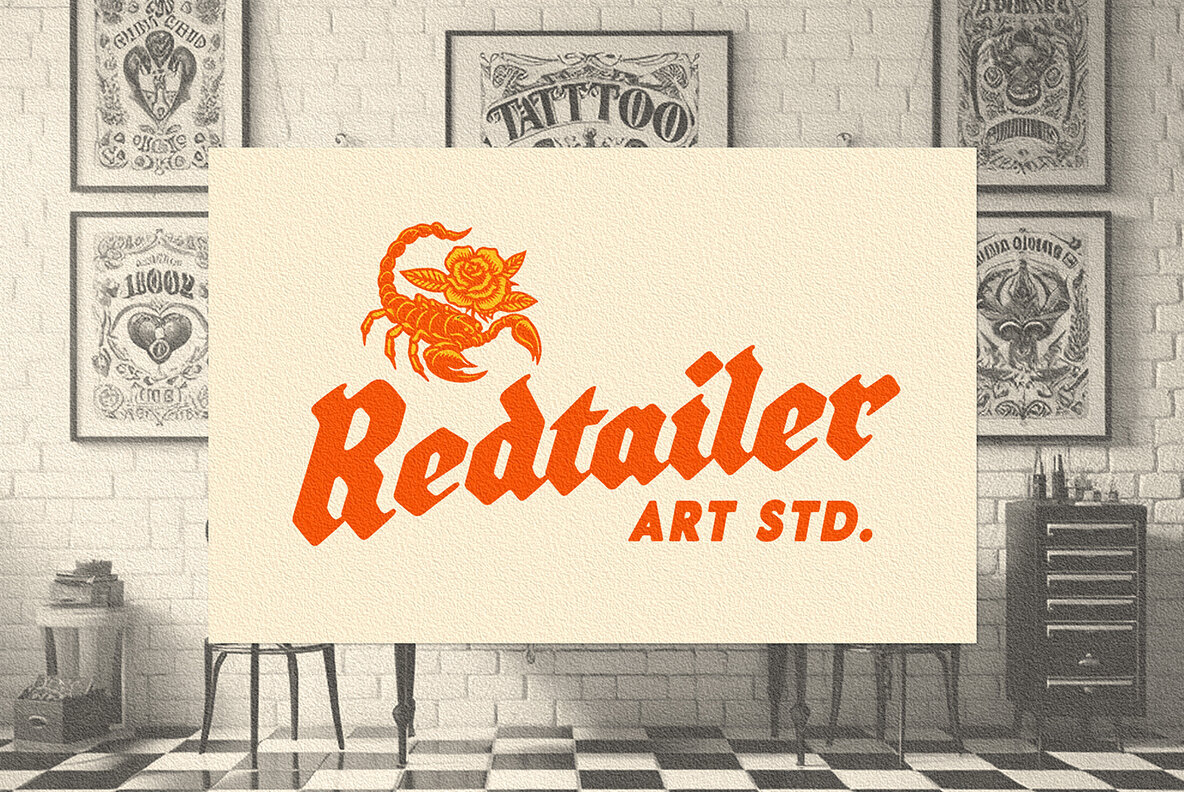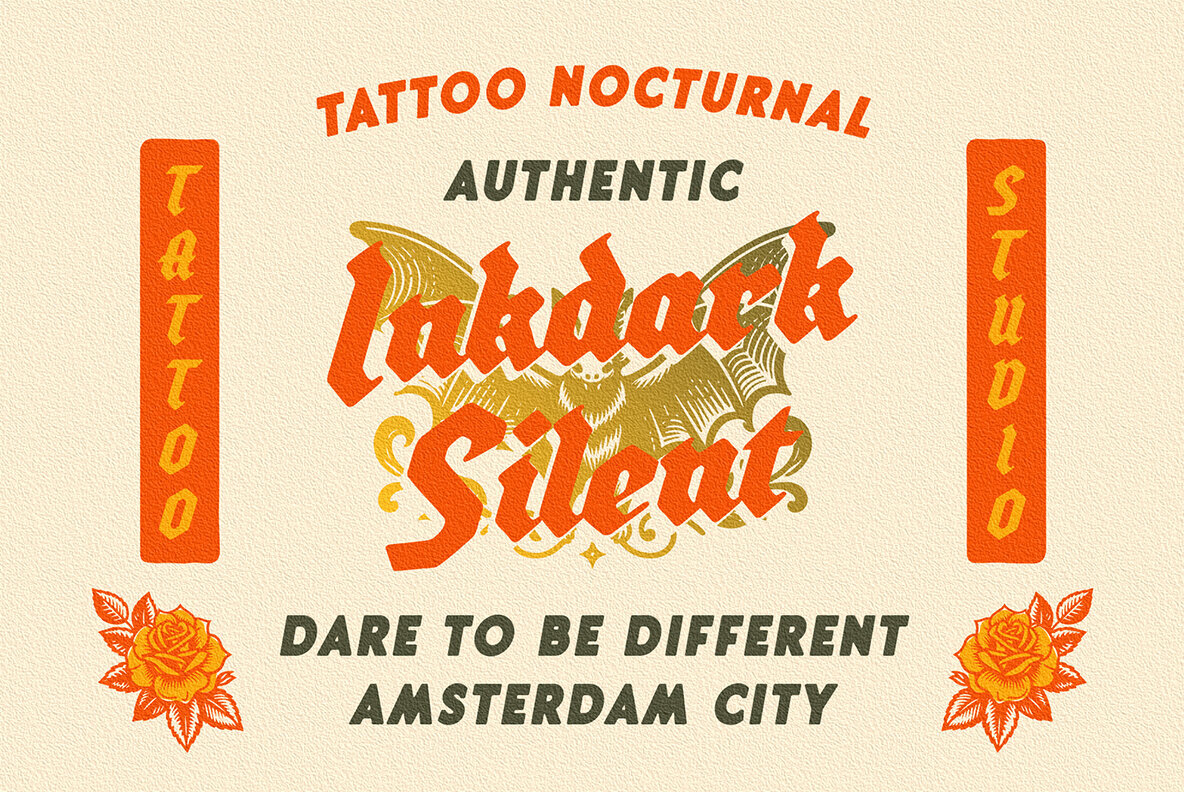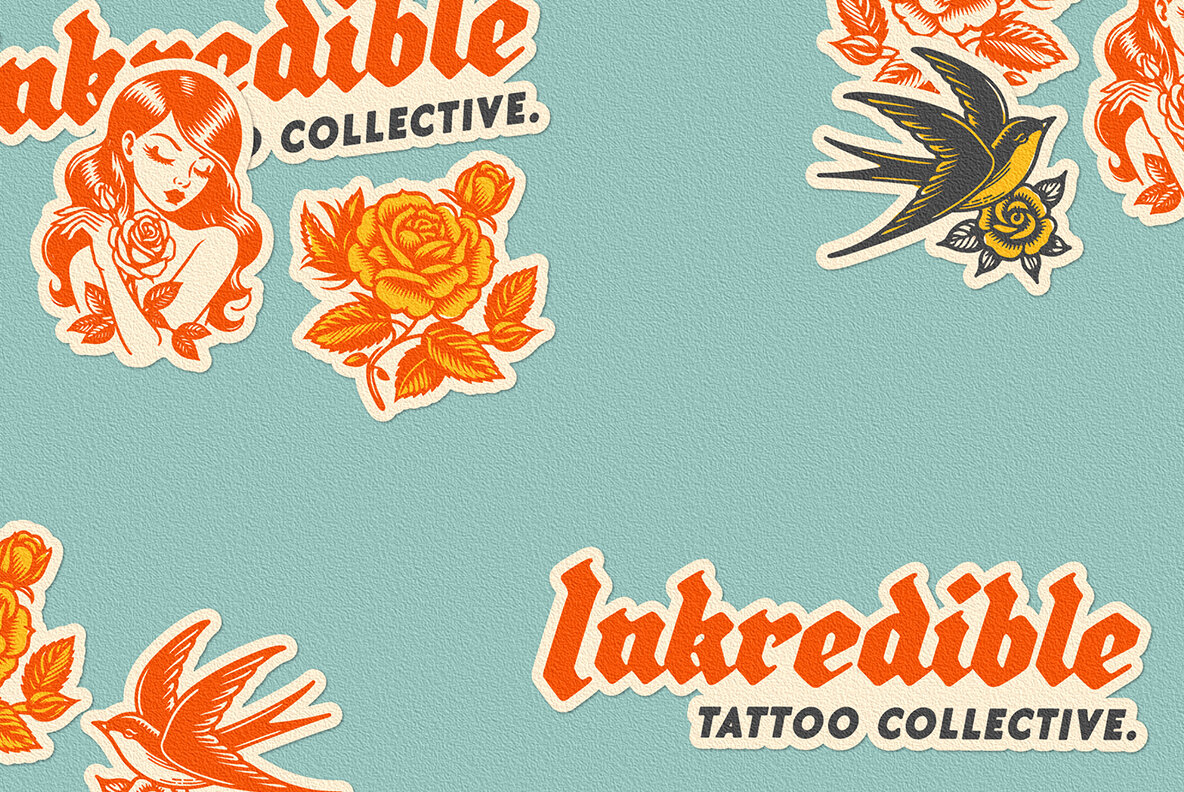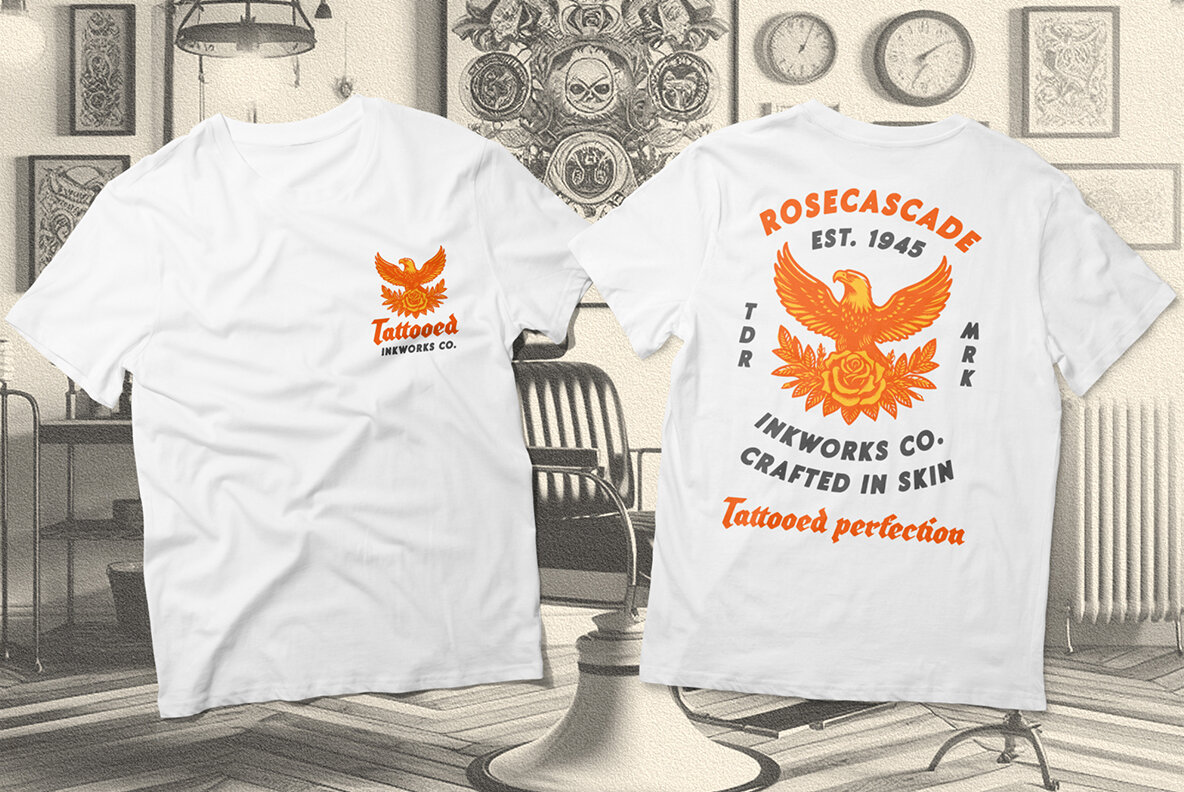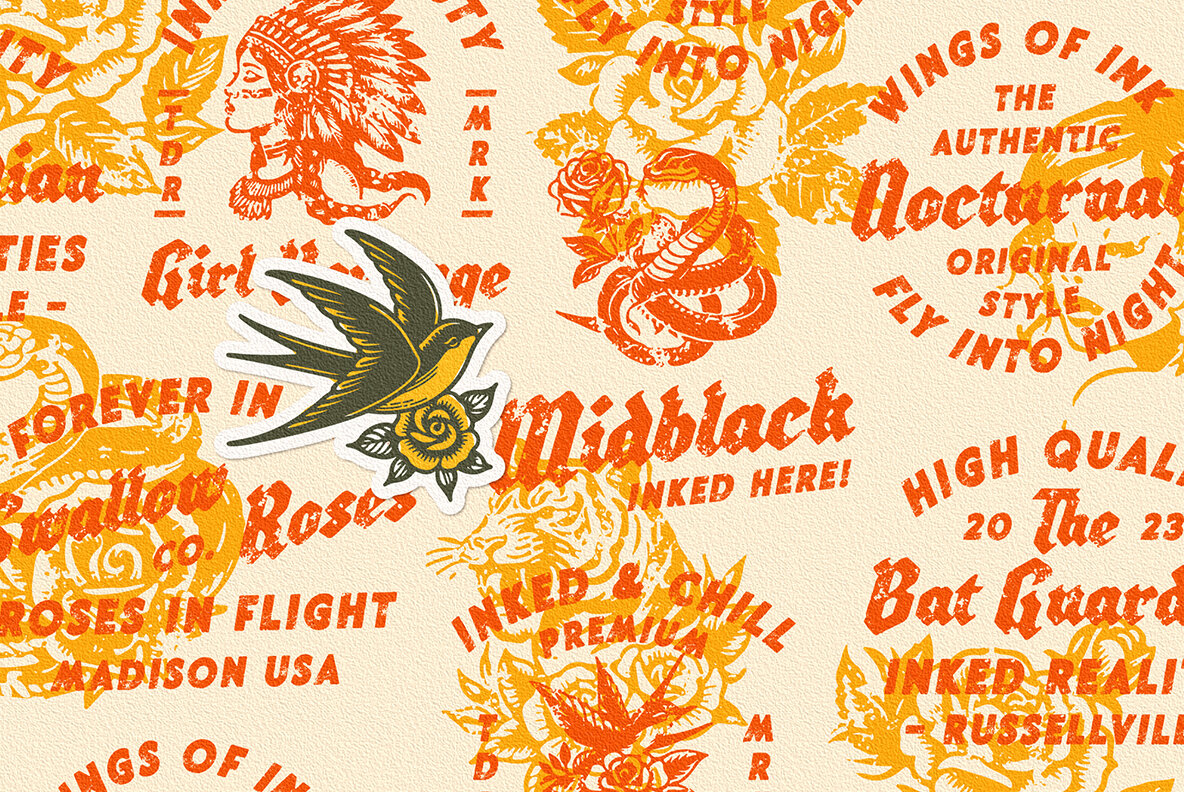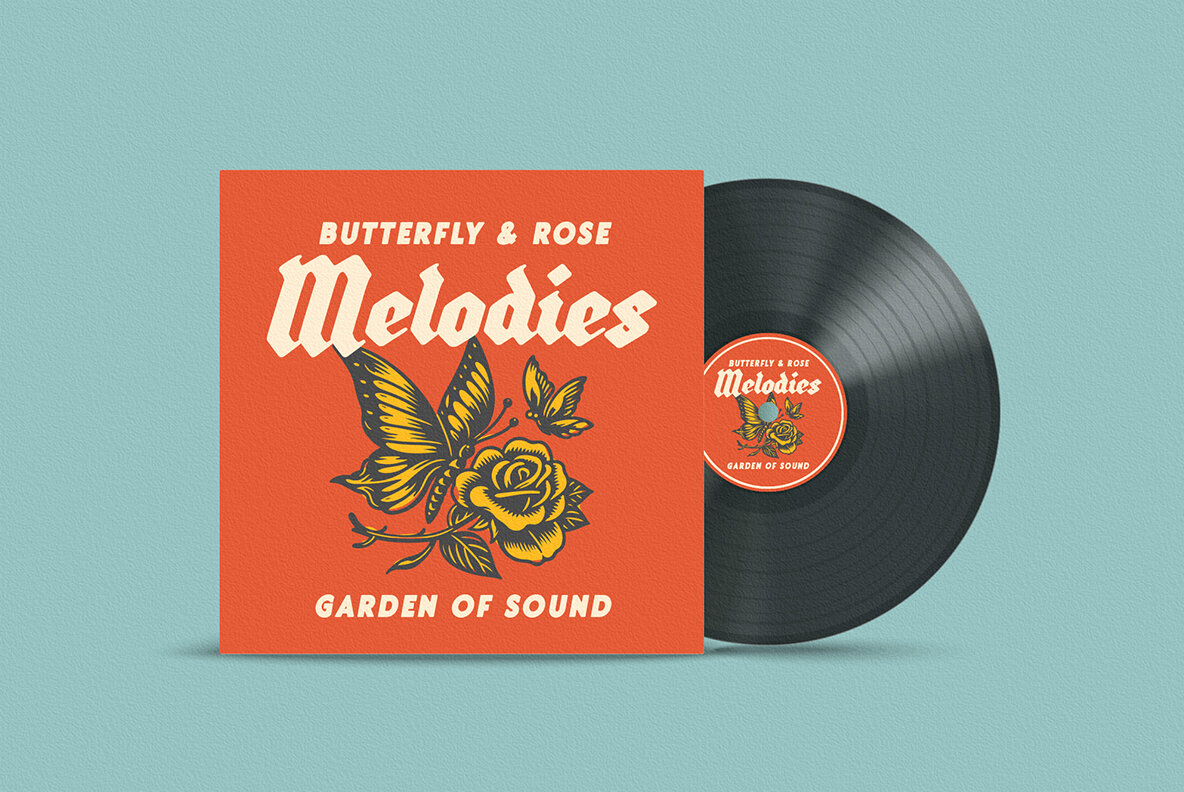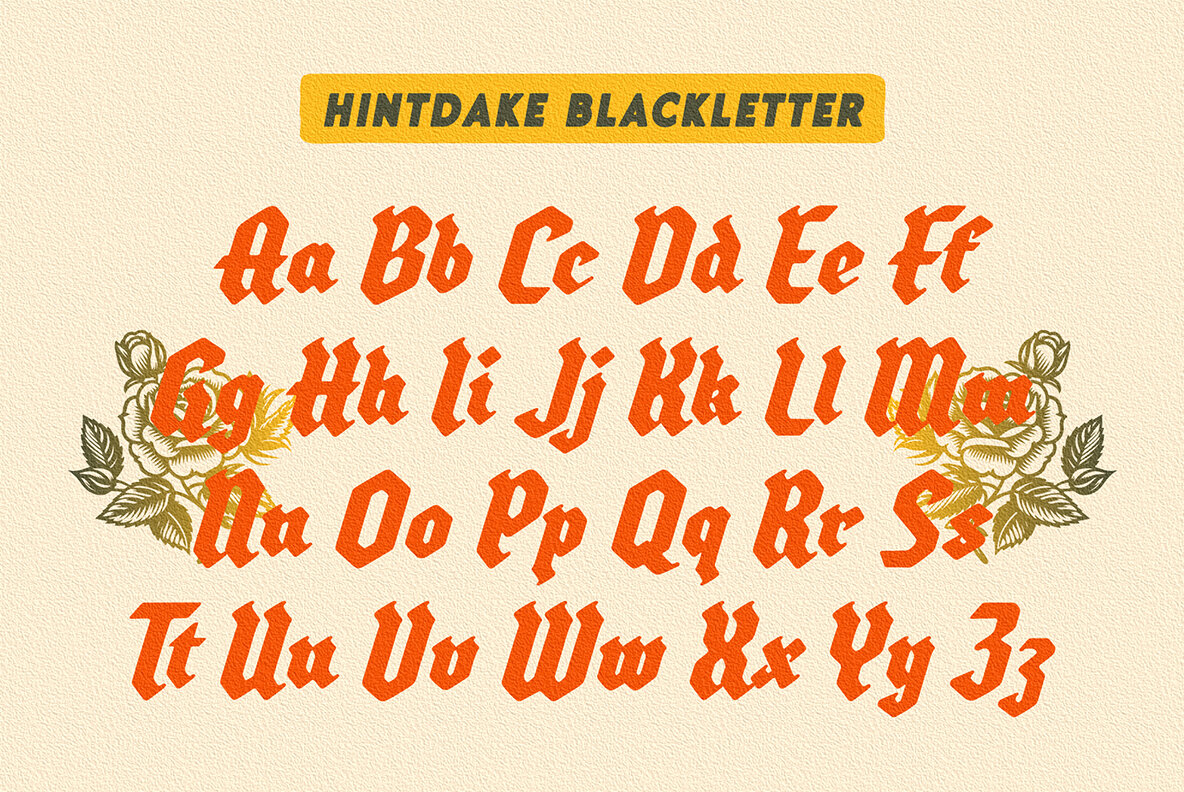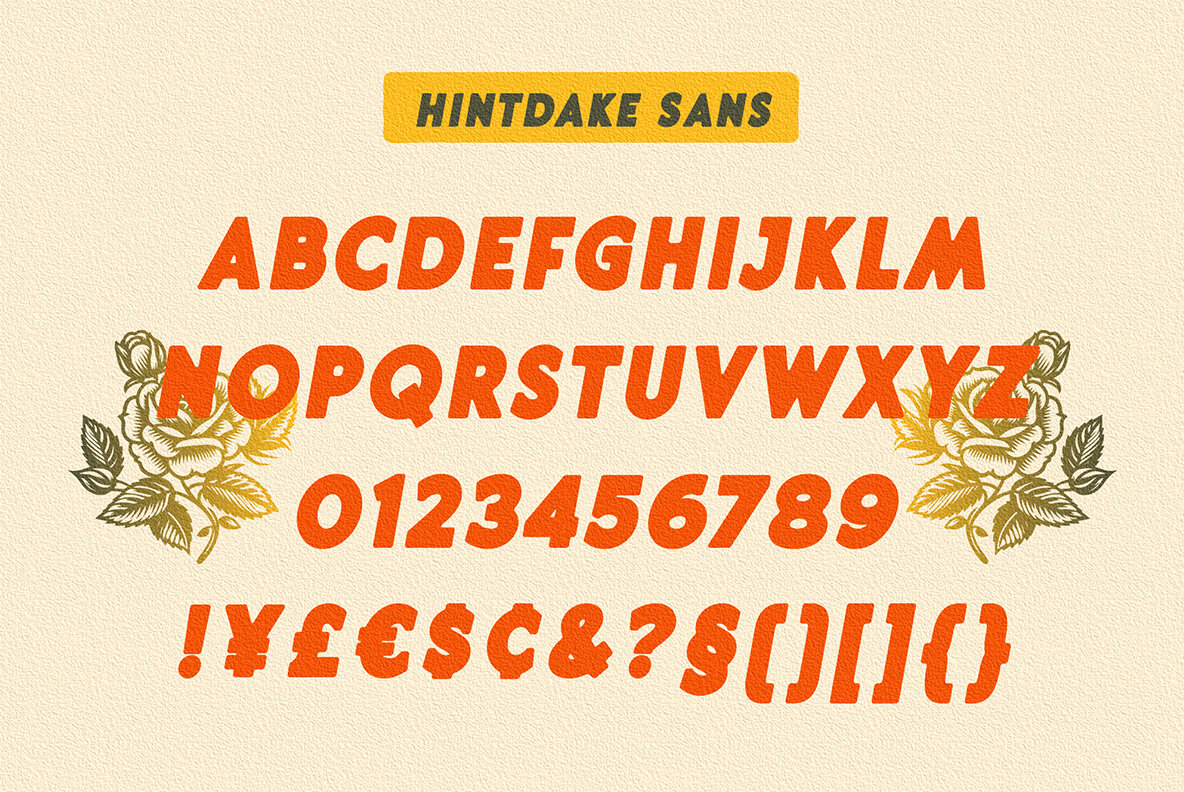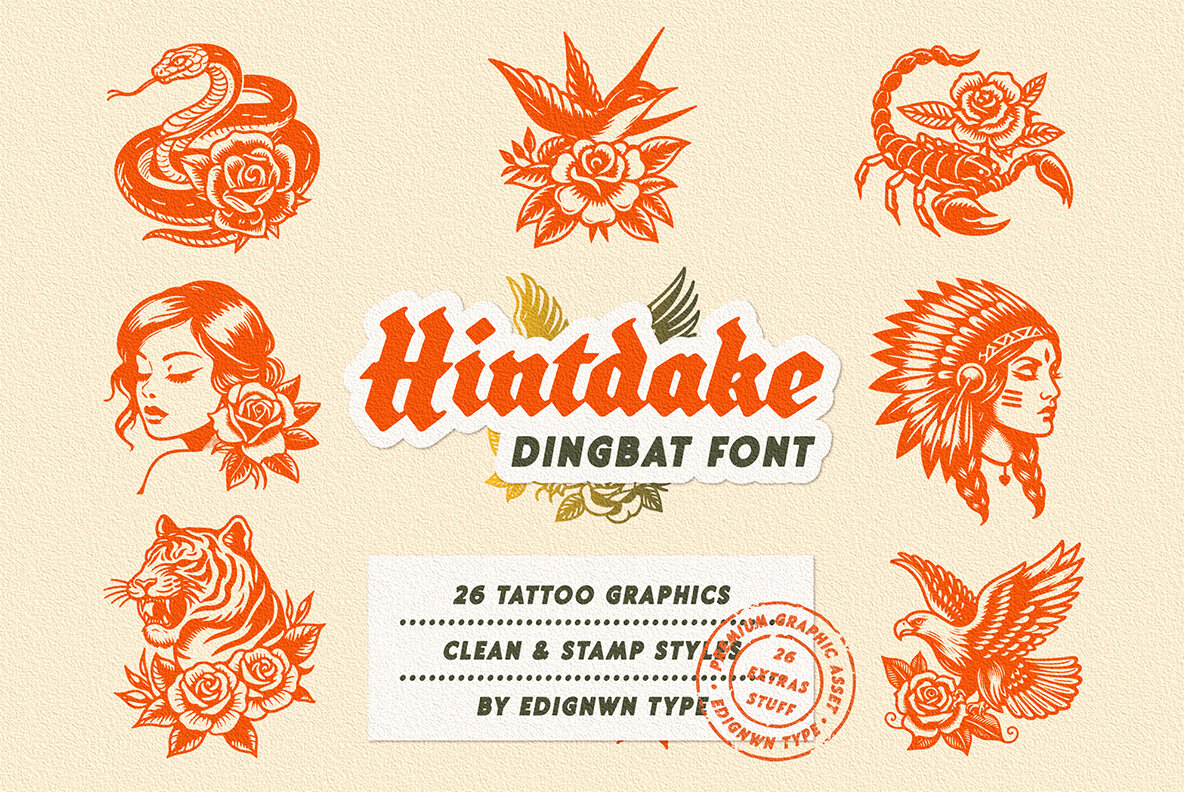
Hintdake Font
Hintdake is more than just a font; it's your ticket to a tattoo font collection. Featuring three styles (regular, rough, and stamp) and 26 bonus tattoo illustrations. Hintdake is your secret weapon for standout logos, branding, and apparel designs. Dive into the world of blackletter fonts and make your creative mark with this exceptional collection.
Hintdake font features:
- 3 style typefaces (regular, rough and stamp)
- Uppercase, lowercase, numeral, symbol, punctuation and ligature in blackletter font
- All-caps, numeral, symbol and punctuation in sans serif font
Hintdake includes:
- 8 fonts (blackletter, sans serif and dingbat)
- 26 tattoo illustrations in dingbat